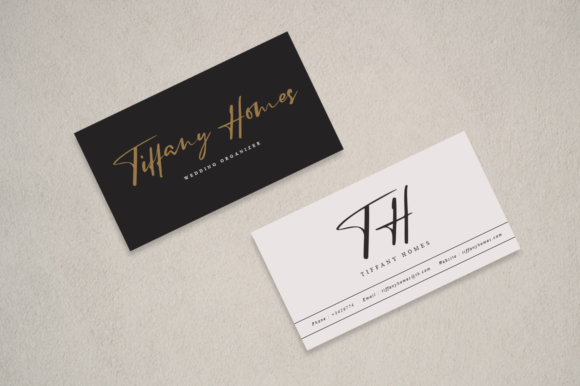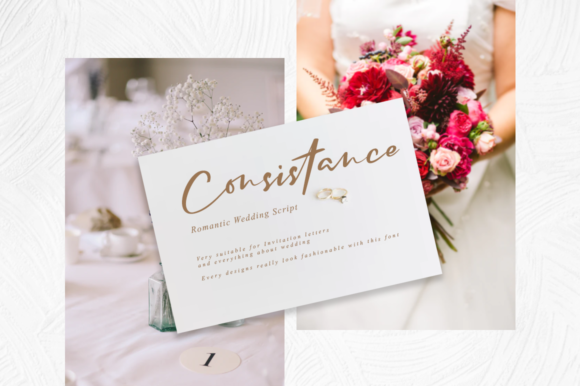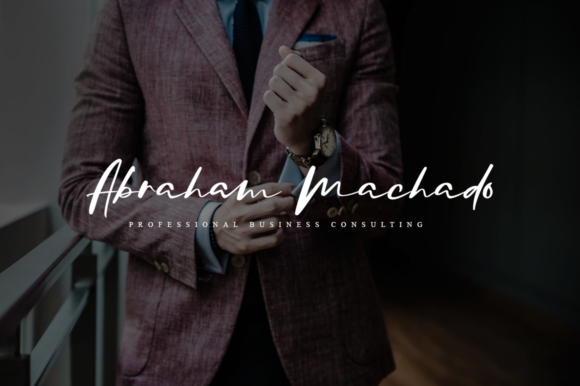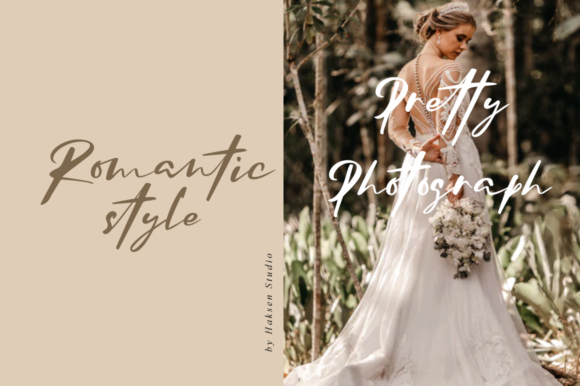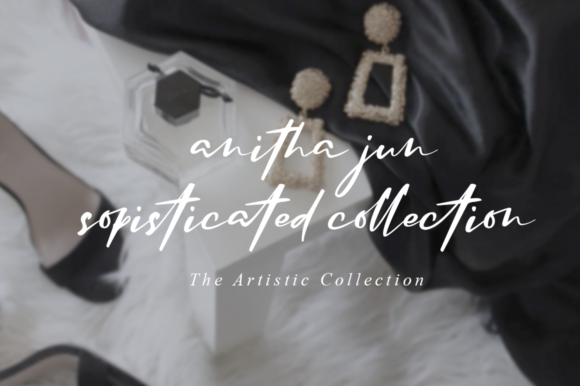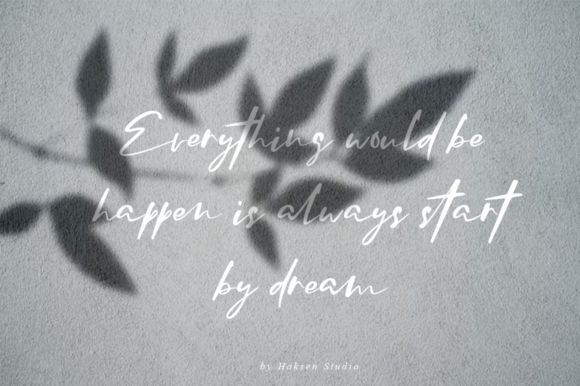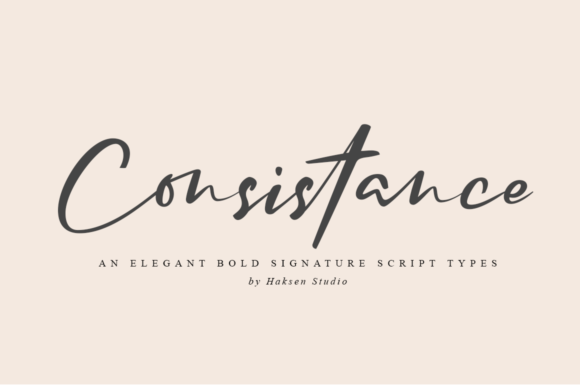
Discover the Elegance of Consistance Font: Elevate Your Design Projects with Effortless Charm
In the world of typography, few fonts manage to strike a balance between sophistication and authenticity. However, Consistance Font is an exception, beautifully merging these two elements to deliver an undeniably charming script. This stunning font is designed to capture the hearts of designers and crafters alike, offering a unique opportunity to turn any design project into a masterpiece. In this article, we’ll explore the allure of Consistance Font, its key features, and how it can elevate your design endeavors.
The Allure of Consistance Font
Consistance Font is more than just a typeface; it’s an experience. Its effortless charm lies in its elegant strokes, precise lettering, and the warmth it brings to any design. Whether you’re working on a branding project, a website, or a crafting endeavor, Consistance Font offers the perfect blend of sophistication and approachability. This font is designed to make your designs stand out, adding a touch of class and personality that sets them apart.
Key Features of Consistance Font
- Elegant Script: Consistance Font boasts a beautifully crafted script that exudes elegance and sophistication. Its fluid strokes and harmonious letter spacing make it a joy to read and a pleasure to look at.
- Versatility: This font is incredibly versatile, suitable for a wide range of design projects, from luxury branding and high-end fashion to digital media and crafting.
- Authenticity: What sets Consistance Font apart is its authentic feel. It’s not just about looking sophisticated; it’s about conveying a sense of genuine warmth and approachability.
- Effortless Charm: The font’s design ensures that your projects will have an undeniable charm, making them more engaging and captivating to your audience.
How Consistance Font Can Elevate Your Design Projects
Consistance Font is a powerful tool for designers and crafters looking to elevate their projects. Here are a few ways it can make a difference:
- Branding: Create a lasting impression with a font that communicates your brand’s sophistication and authenticity. Consistance Font can help you establish a strong brand identity that resonates with your audience.
- Website Design: Enhance your website’s aesthetic appeal and user experience with a font that is both beautiful and readable. Consistance Font can help you create a cohesive and engaging online presence.
- Crafting and DIY Projects: Add a professional touch to your crafting and DIY projects. Whether you’re creating labels, cards, or any other materials, Consistance Font can help you achieve a high-quality finish.
Tips for Using Consistance Font Effectively
To get the most out of Consistance Font, consider the following tips:
- Pair it Wisely: Combine Consistance Font with complementary fonts to create visual interest and hierarchy in your designs.
- Experiment with Sizes: Play around with different font sizes to emphasize certain elements and create a dynamic layout.
- Use it for Headings and Body Text: While Consistance Font is elegant enough for headings, its readability also makes it suitable for body text, depending on the project.
| Font Name | Consistance Font |
| Author | Haksen |
Consistance Font is a remarkable typeface that beautifully merges sophistication and authenticity, delivering an undeniably charming script. Its effortless charm and versatility make it an ideal choice for designers and crafters looking to elevate their design projects. Whether you’re aiming to create a stunning brand identity, a captivating website, or a professional crafting project, Consistance Font offers the perfect solution. Fall in love with its elegance, and turn any design project into a masterpiece with Consistance Font.